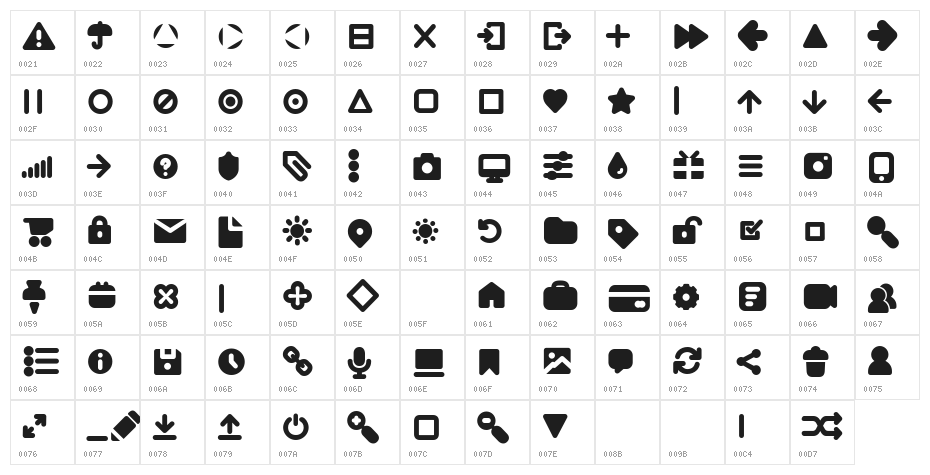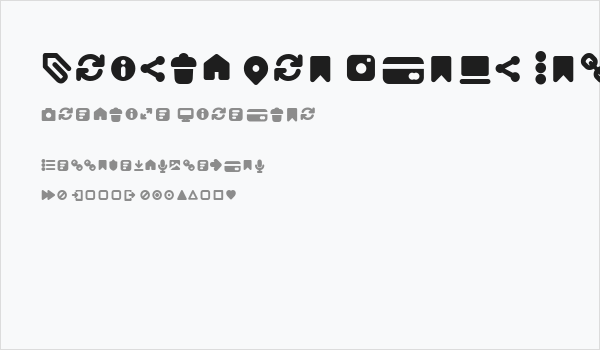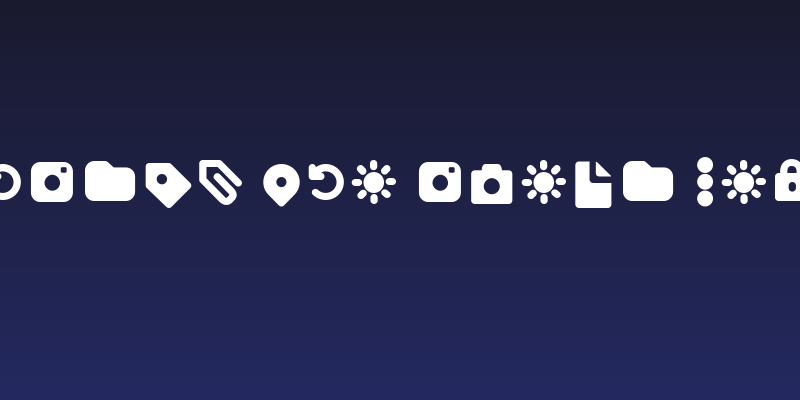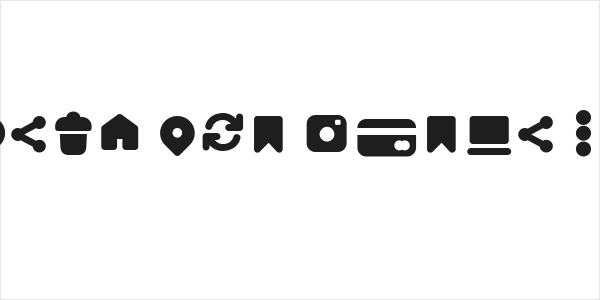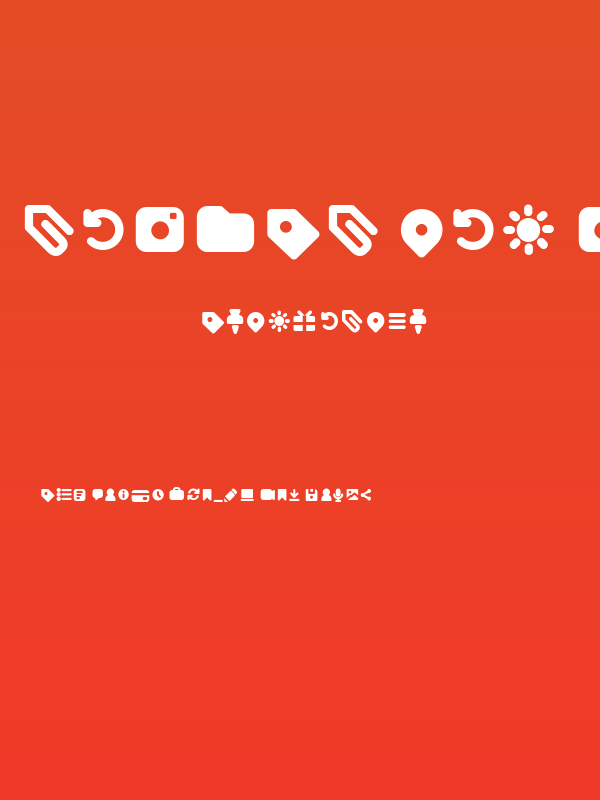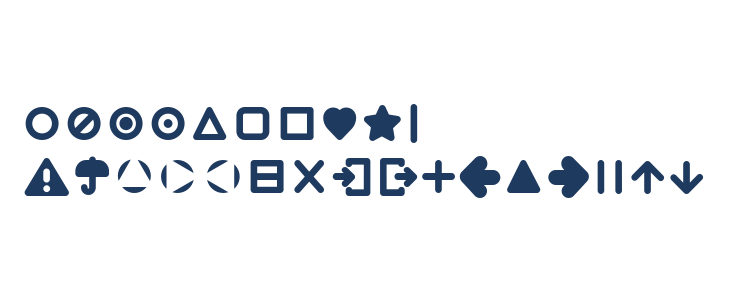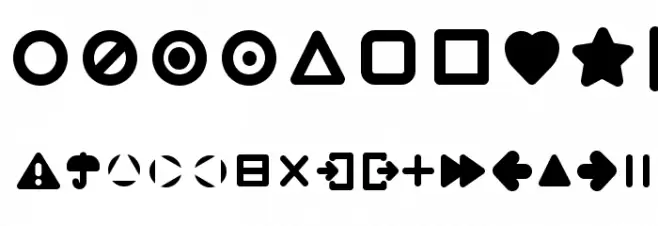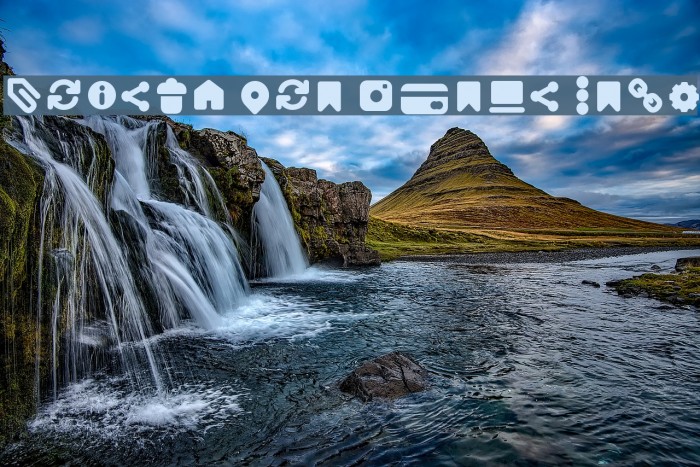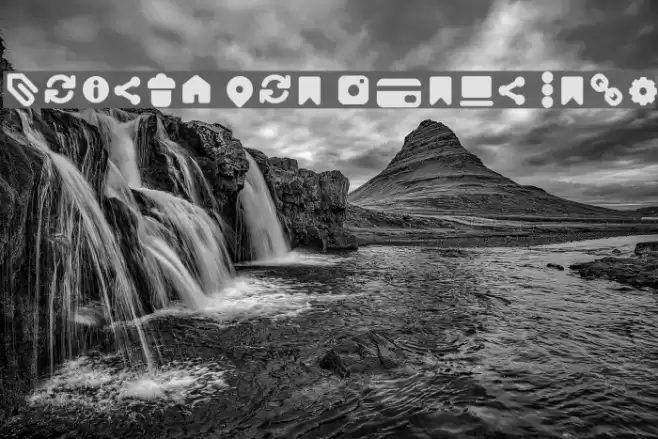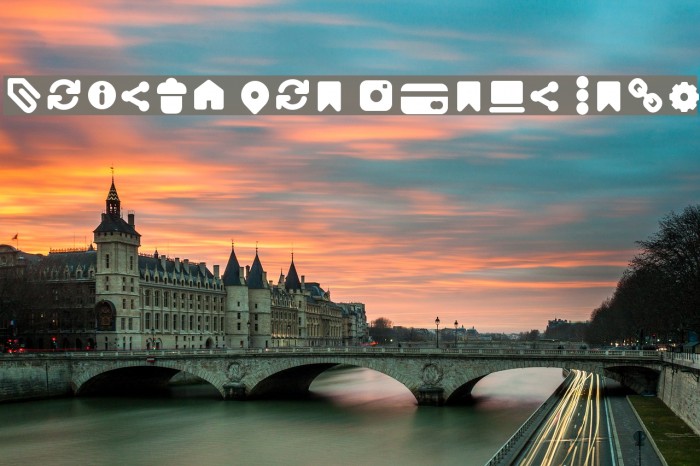
Arista Pro Icons Bold Font
This collection of icons features a bold and modern design, characterized by clean lines and solid fills. The icons are highly recognizable and versatile, making them suitable for a wide range of applications. Each icon is crafted with precision, ensuring clarity and consistency across the set. The boldness of the icons makes them stand out, providing excellent visibility even at smaller sizes. The set includes a variety of symbols, from basic shapes to more complex representations, allowing for comprehensive use in digital interfaces. The uniform style across the icons ensures a cohesive look, enhancing the overall aesthetic of any project they are used in.
| Use Case | Icons, User Interfaces, Digital Design |
| Proposed Projects | Ideal for app interfaces, website design, user interface elements, and digital presentations. |